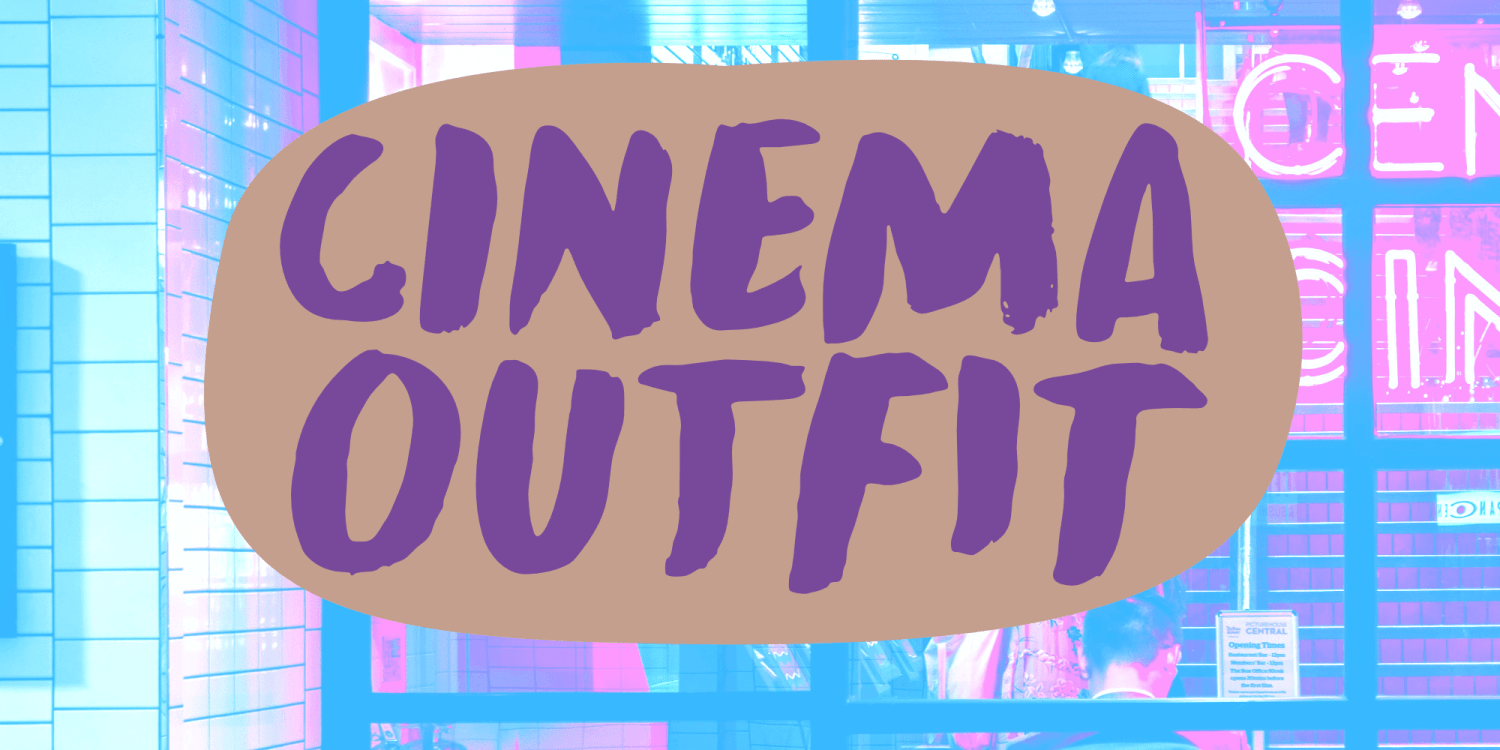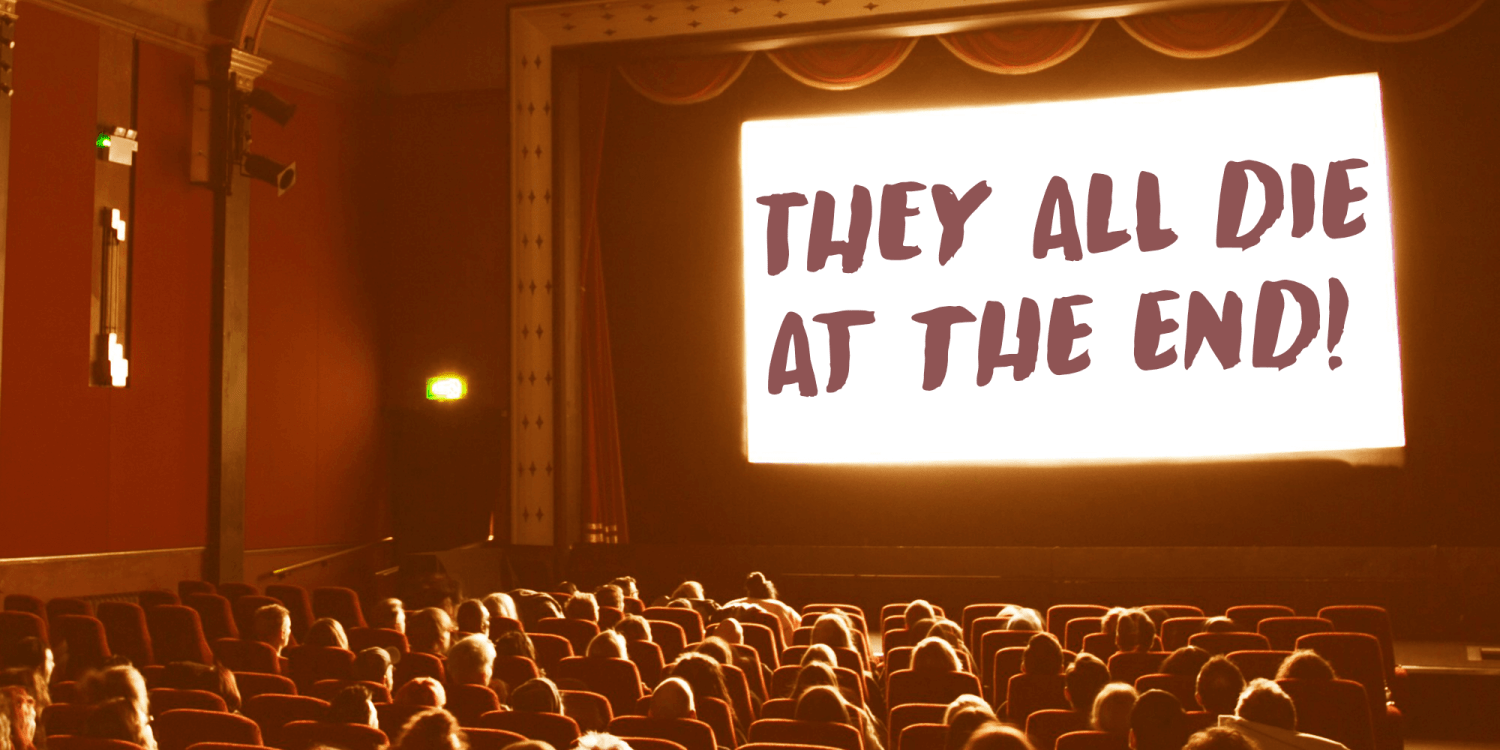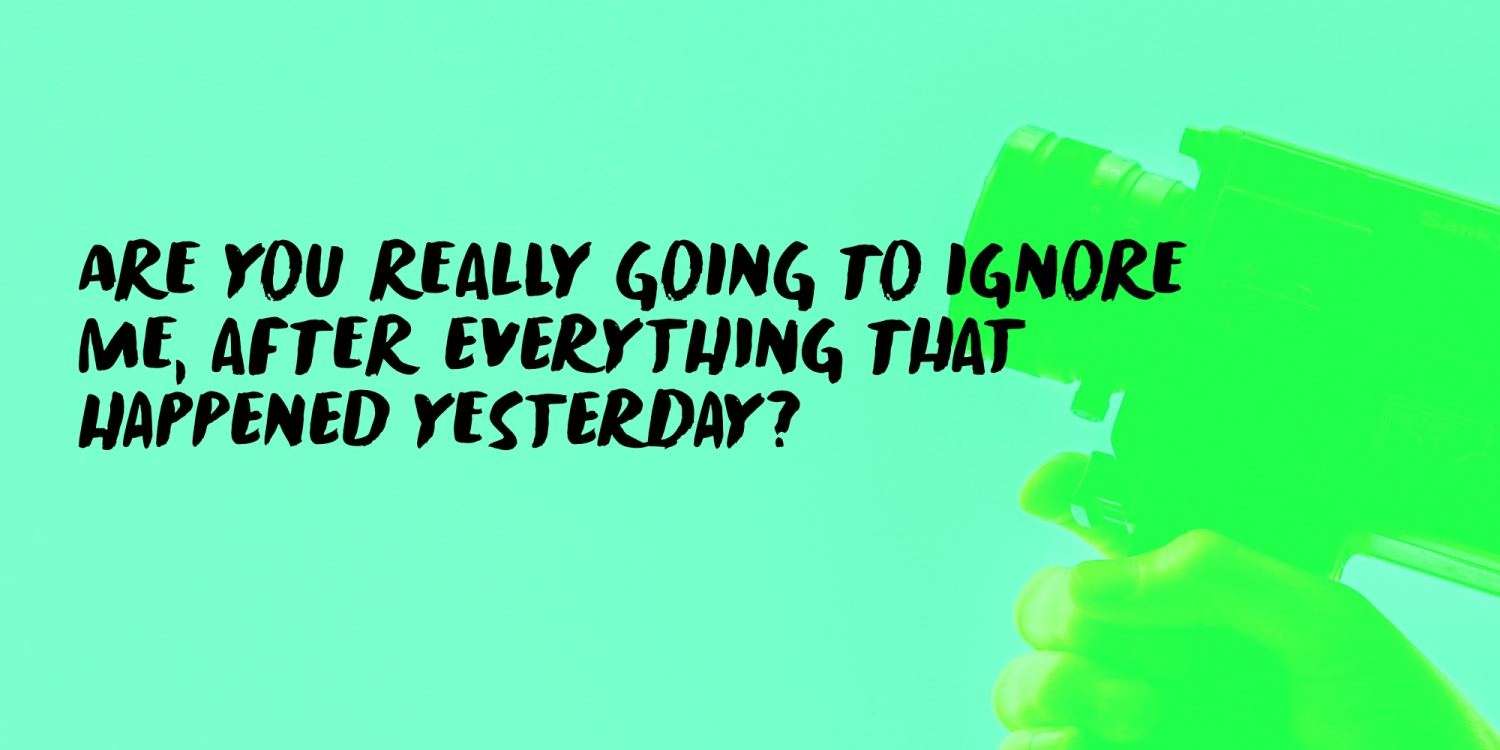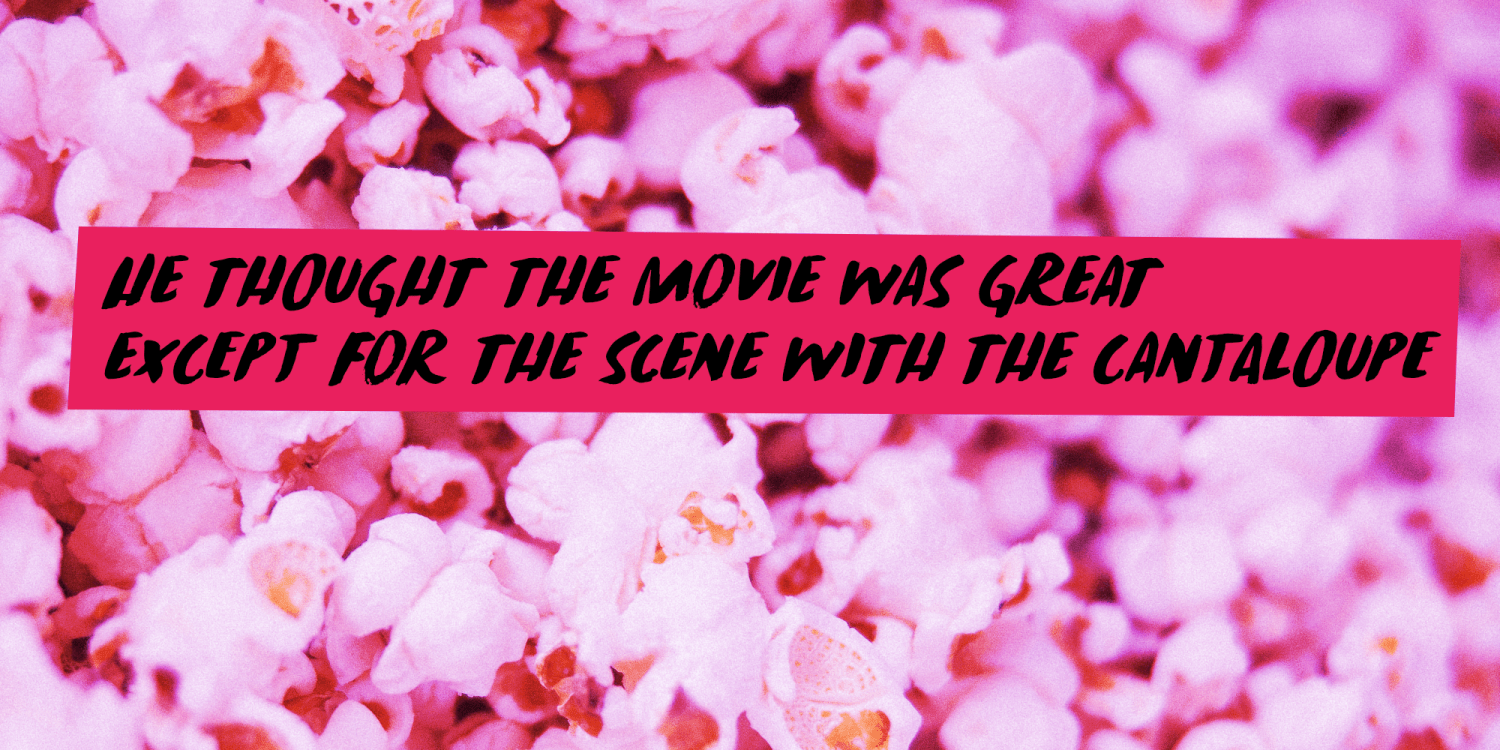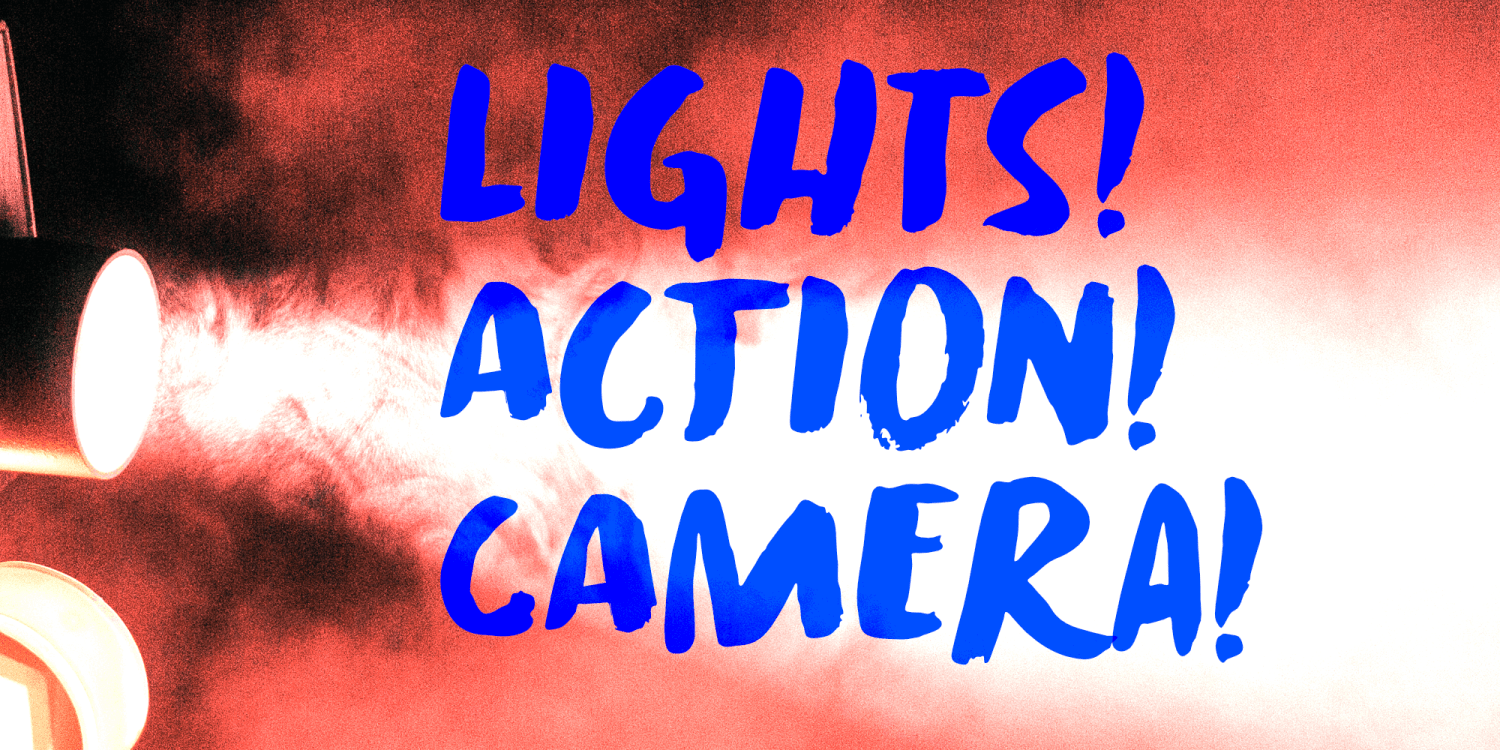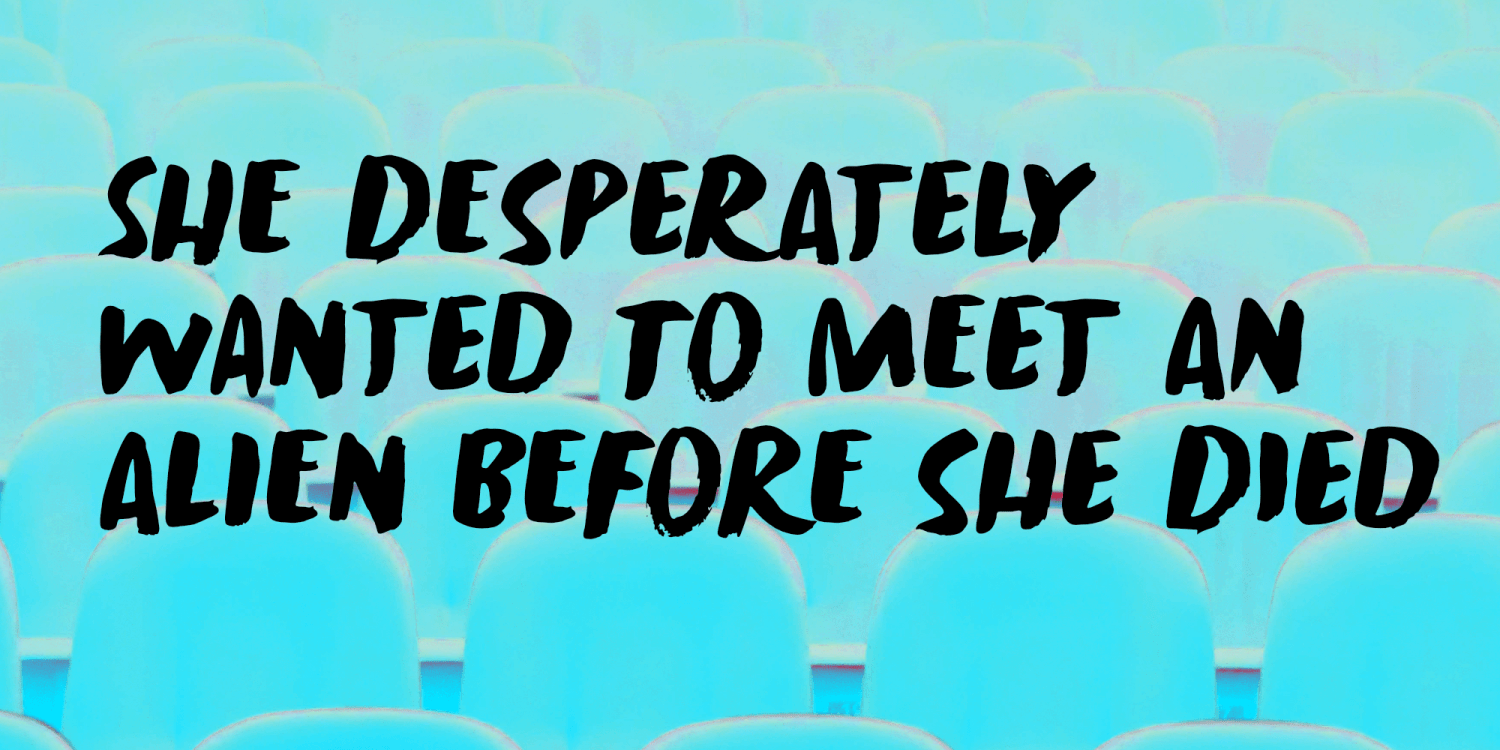
Cinema Outfit
My wife was going to the cinema and asked me what she should wear. I didn’t have a clue, as I didn’t know one should dress up for the cinema (but apparently it’s a thing…).
Anyways, I was thinking about that when I started working on this font. Cinema Outfit was made with ink and brush. It is a nice, messy kind of font which will look fantastic when used in your designs.
Comes with extensive language support and a set of contextual alternates to boot!
Cinema Outfit by Hanoded